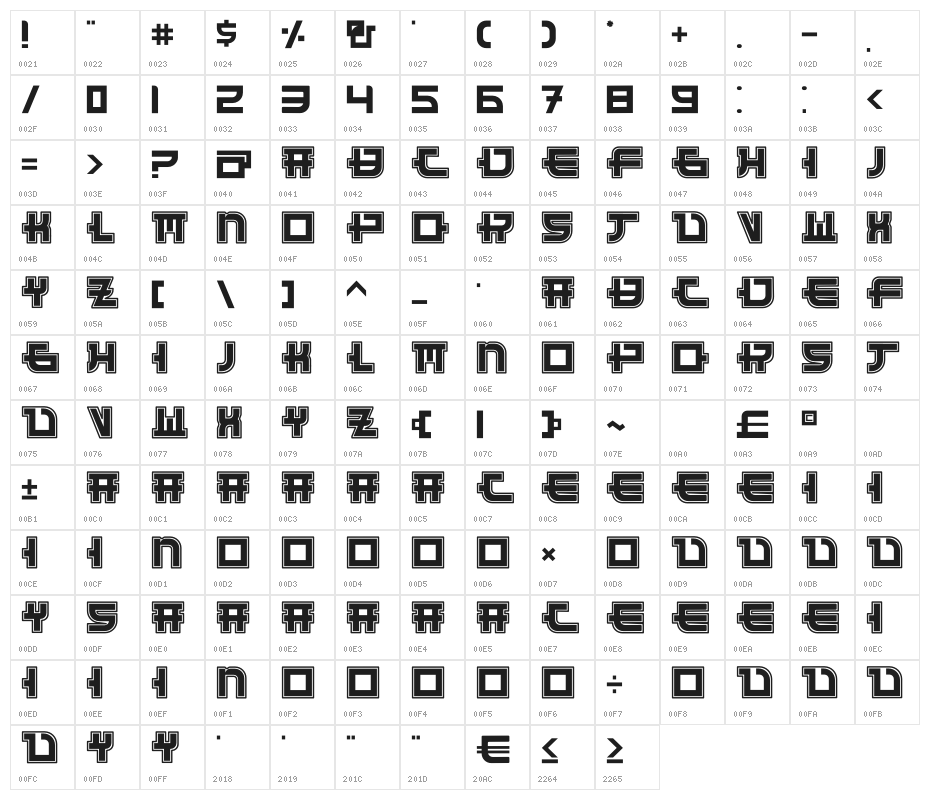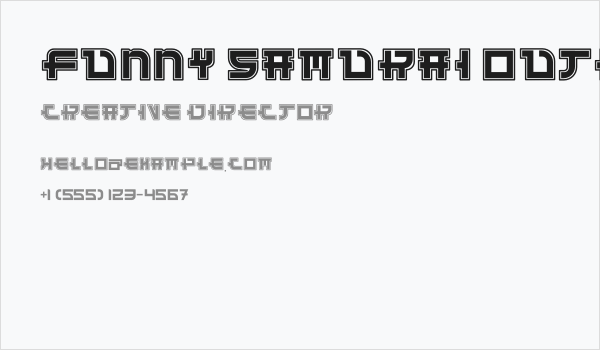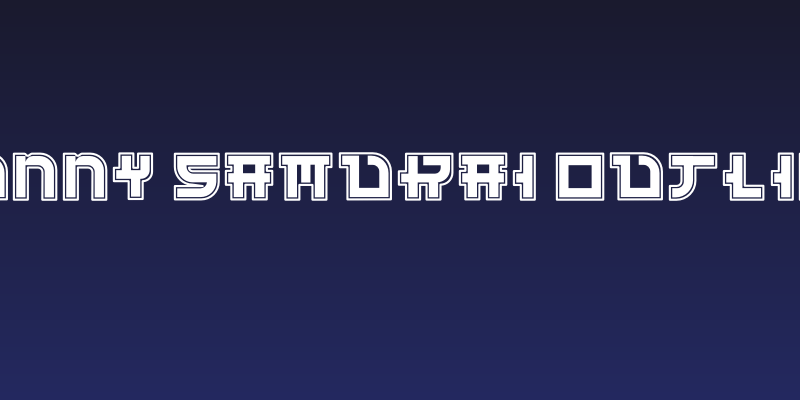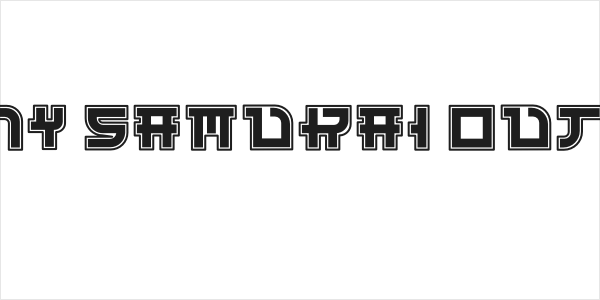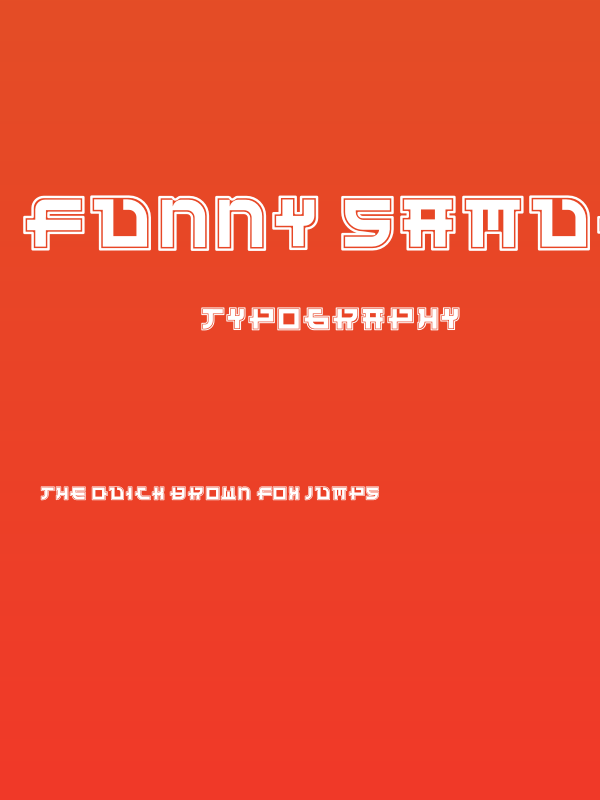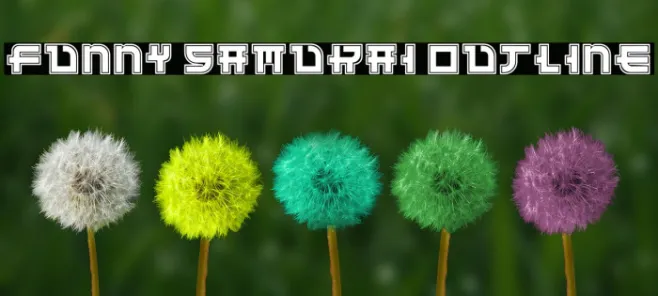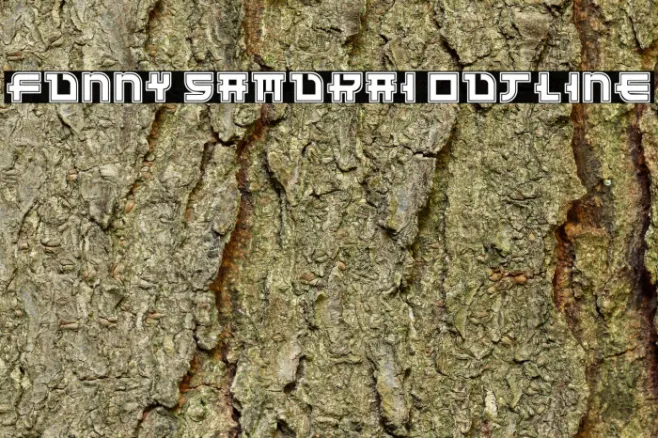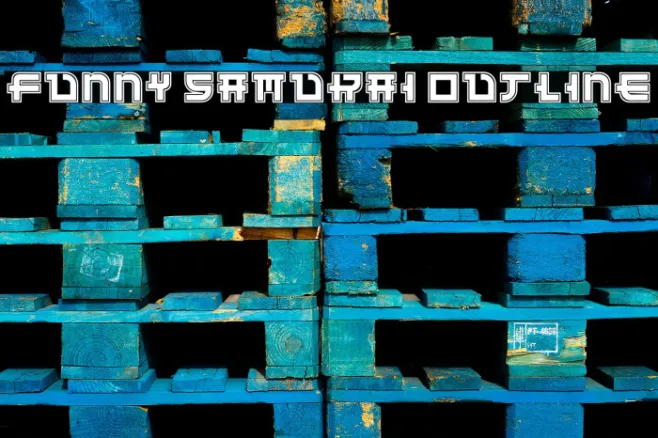
Funny Samurai Outline Font
Funny Samurai Outline Description
This font features a bold, geometric design with a distinct outline that gives it a striking, modern appearance. The characters are constructed with sharp angles and a blocky structure, creating a sense of strength and stability. The outline adds depth and dimension, making each letter stand out prominently. The font maintains a consistent weight throughout, ensuring uniformity across all characters. Its unique style is reminiscent of futuristic or tech-inspired themes, making it ideal for projects that require a bold and eye-catching typeface. The numbers and special characters follow the same design principles, ensuring a cohesive look across all elements.